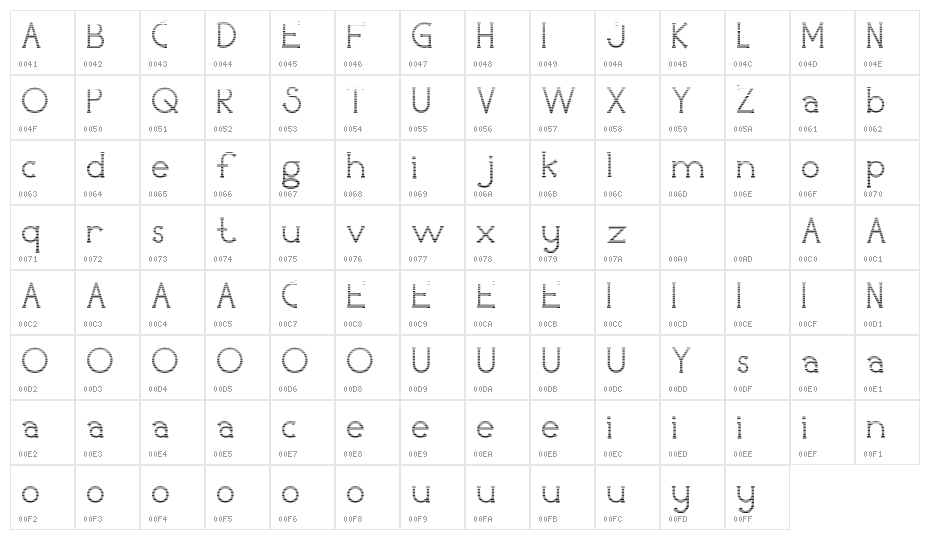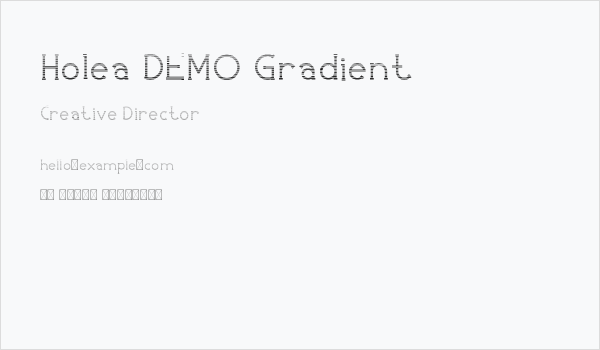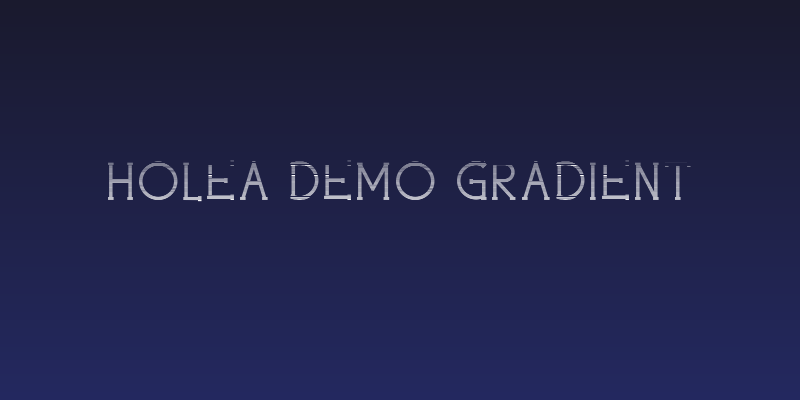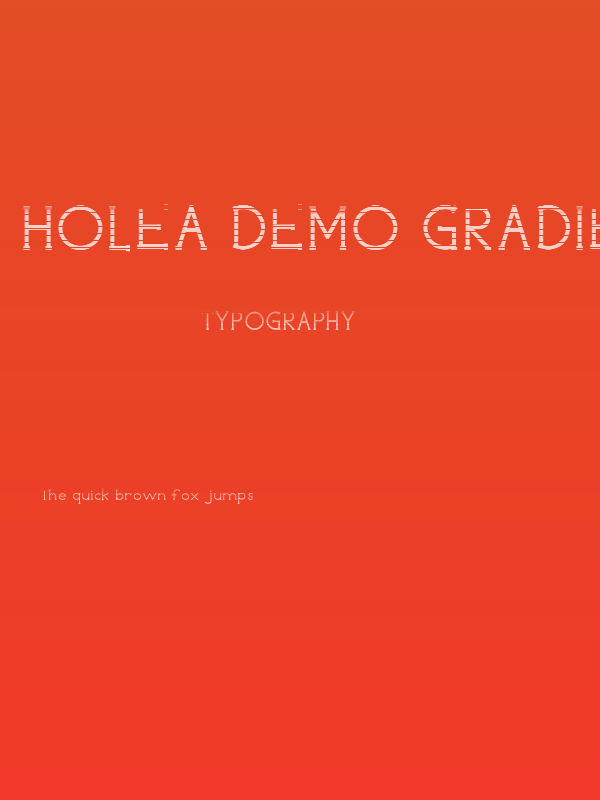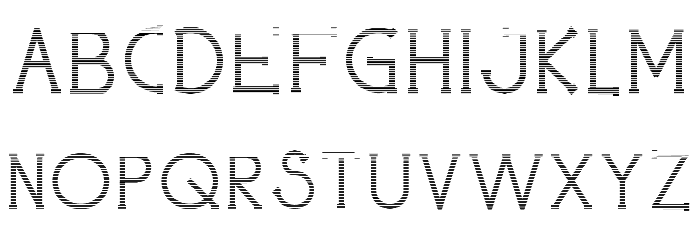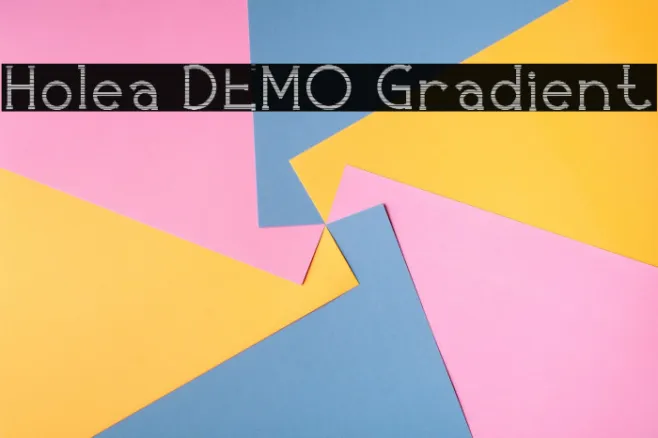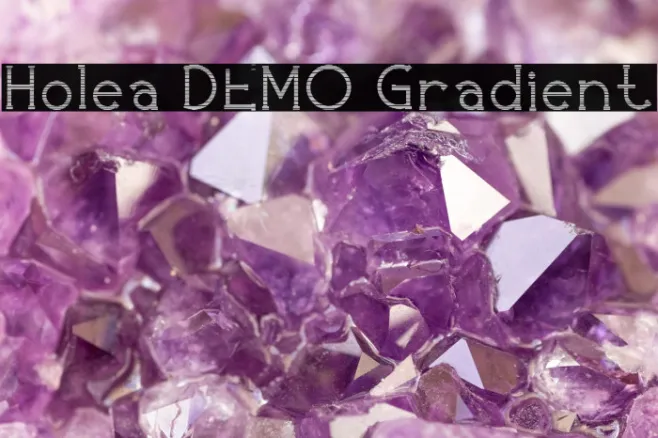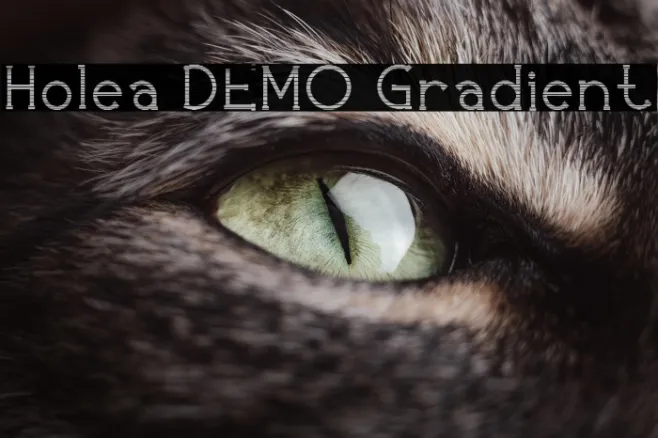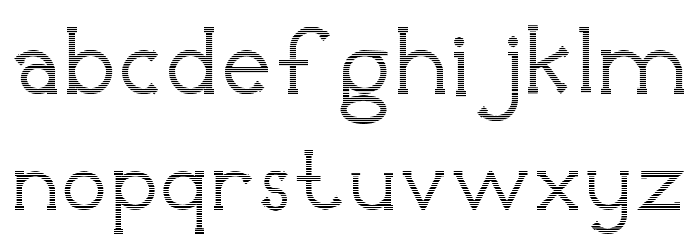
Holea DEMO Gradient Font
Holea DEMO Gradient Description
This font features a unique gradient effect within each character, giving it a modern and dynamic appearance. The uppercase and lowercase letters are designed with a consistent line pattern that creates a sense of movement and depth. The characters maintain a geometric structure, with clean lines and sharp angles, making them highly legible. The numerals and special characters follow the same stylistic approach, ensuring uniformity across all glyphs. This font's distinct style makes it suitable for creative projects that require a contemporary and eye-catching typeface.
| Proposed Projects | Ideal for branding, advertising, digital media, and editorial design projects that aim to stand out. |